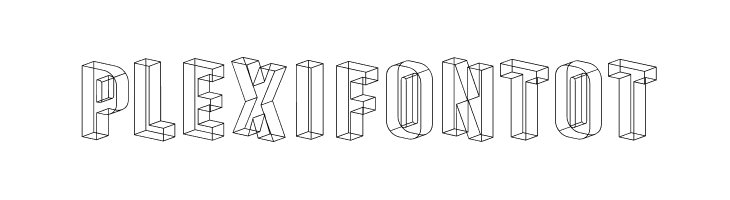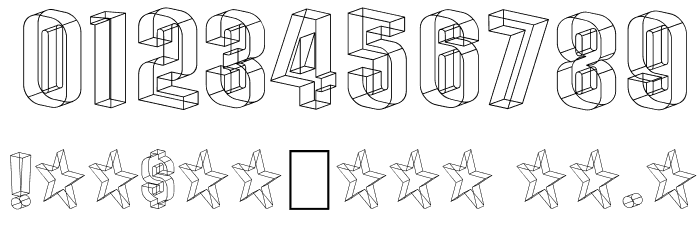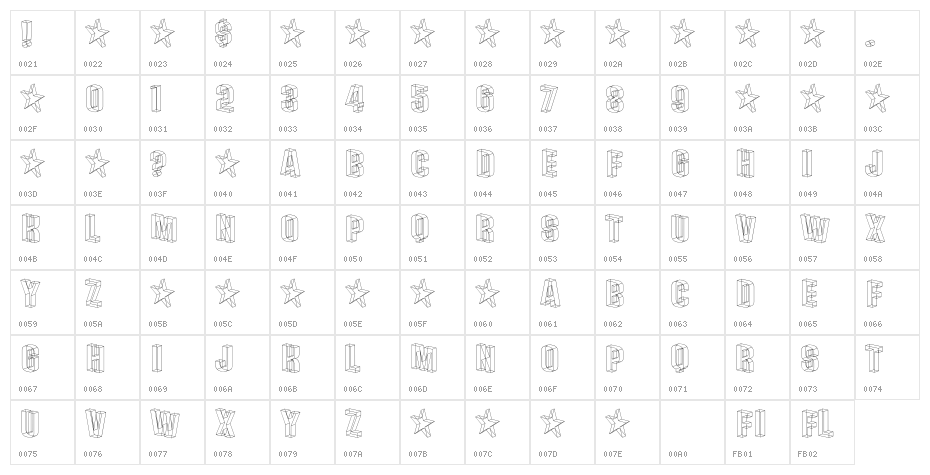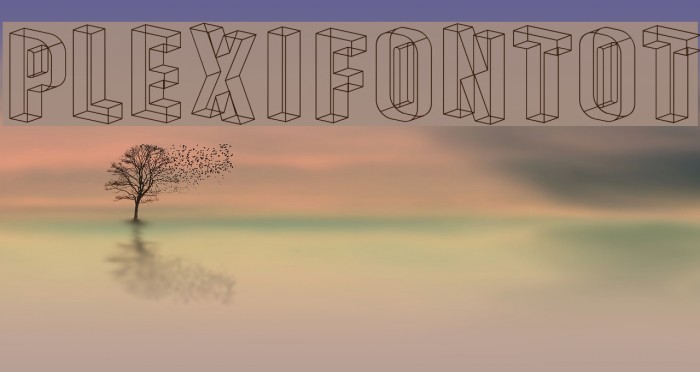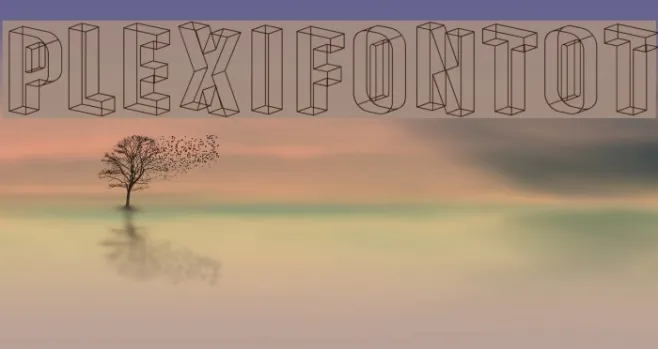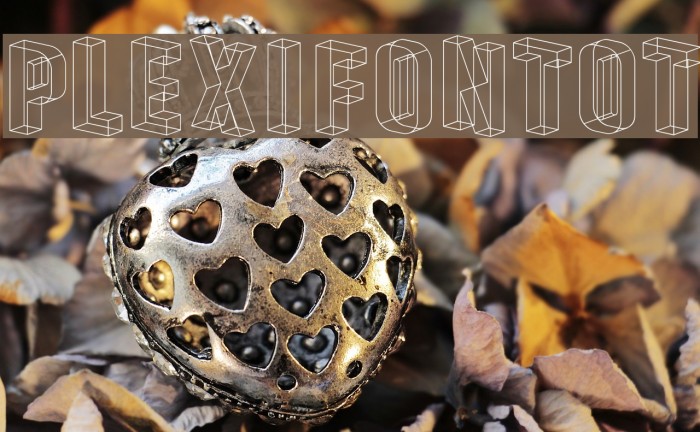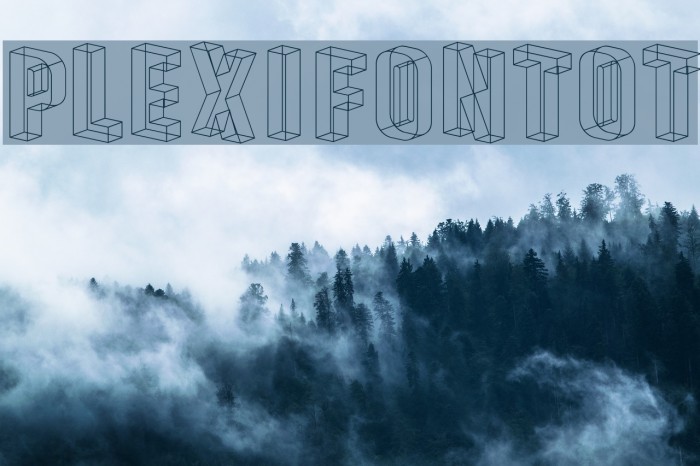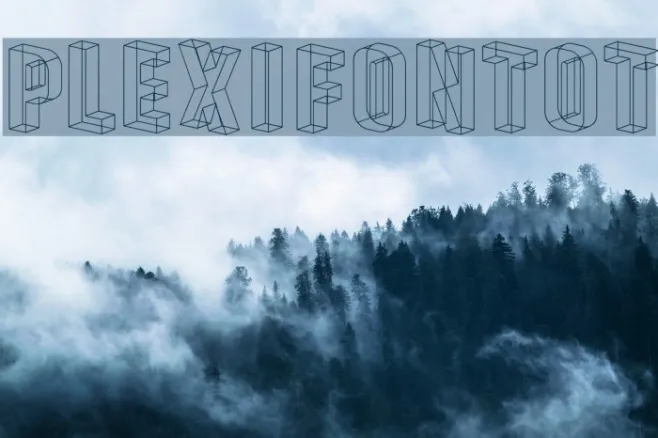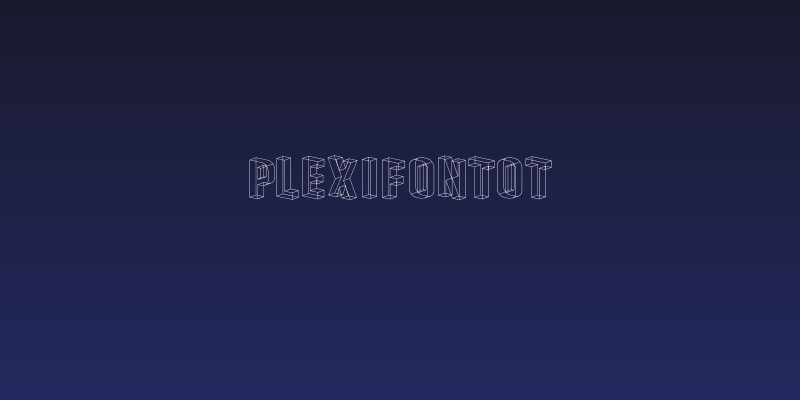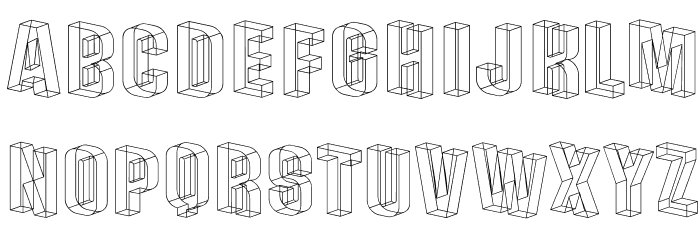
PlexifontOT Font
PlexifontOT Description
This font features a unique 3D outline style, creating a sense of depth and dimension. Each character is constructed with a wireframe design, giving it a modern and technical appearance. The uppercase and lowercase letters maintain a consistent geometric form, while the numerals and special characters follow the same structural theme. The font's intricate line work and open spaces make it visually striking, suitable for projects that require a futuristic or architectural aesthetic. Its distinct style ensures it stands out in any design context.
| Proposed Projects | Ideal for architectural designs, tech branding, futuristic posters, and digital artwork. |